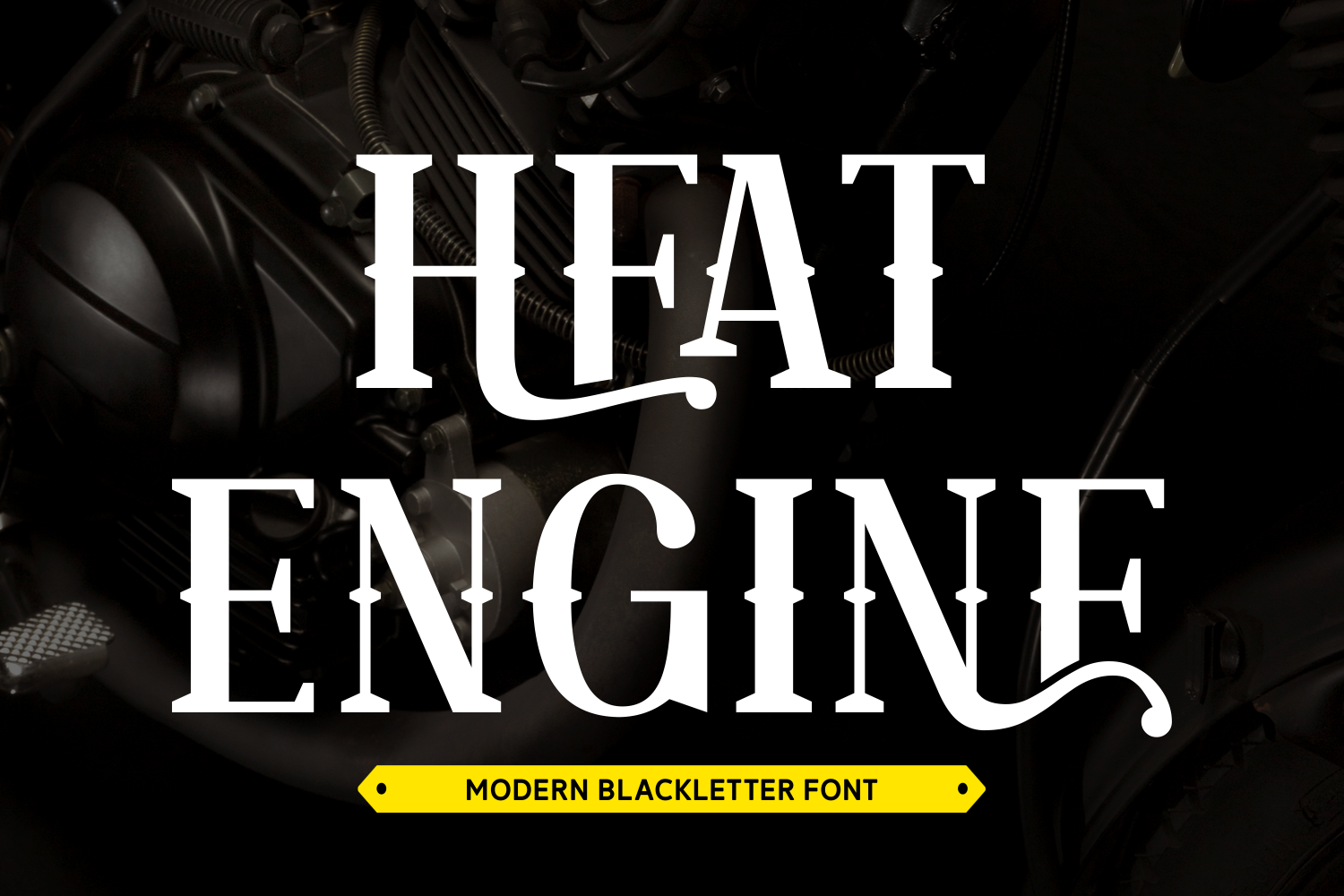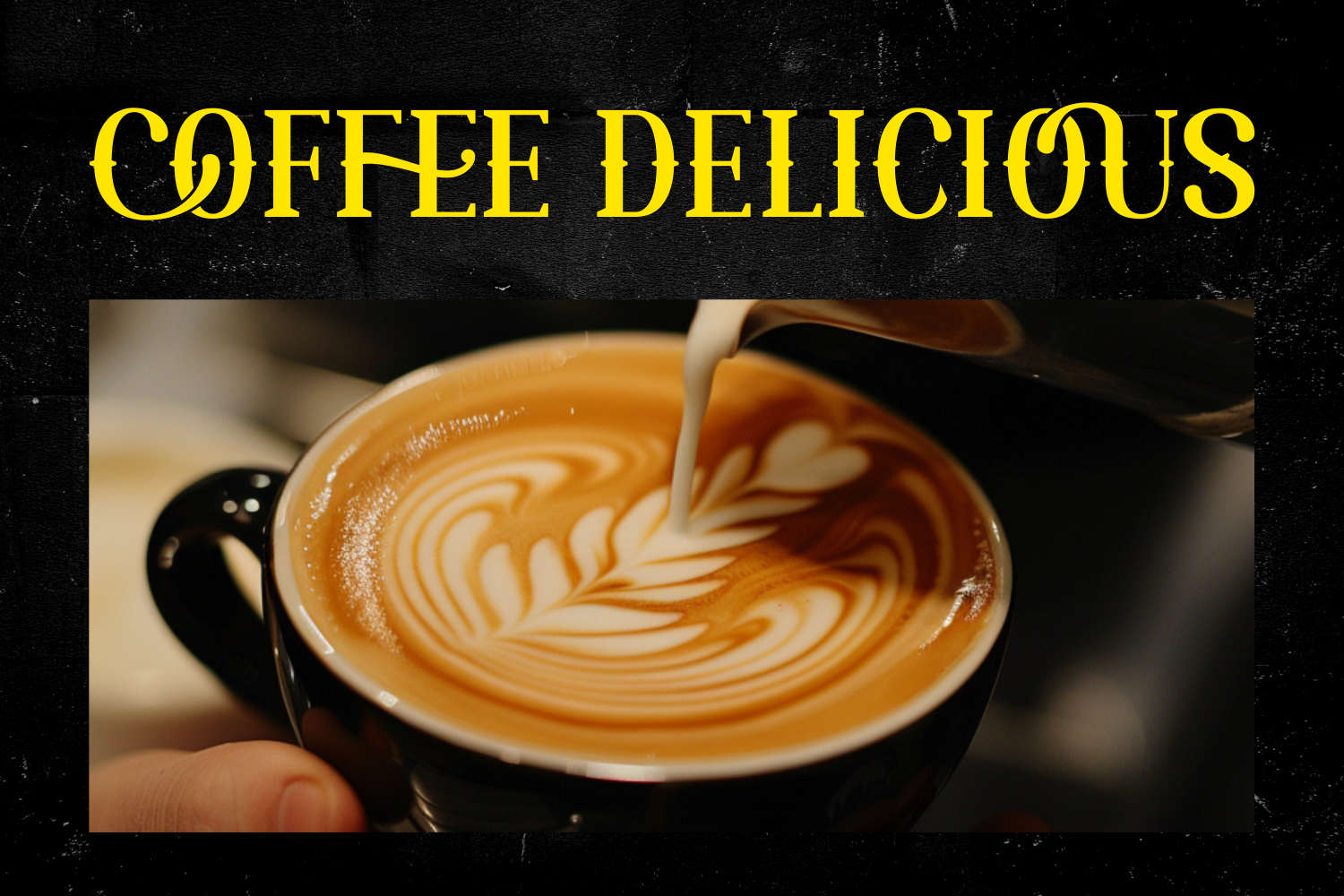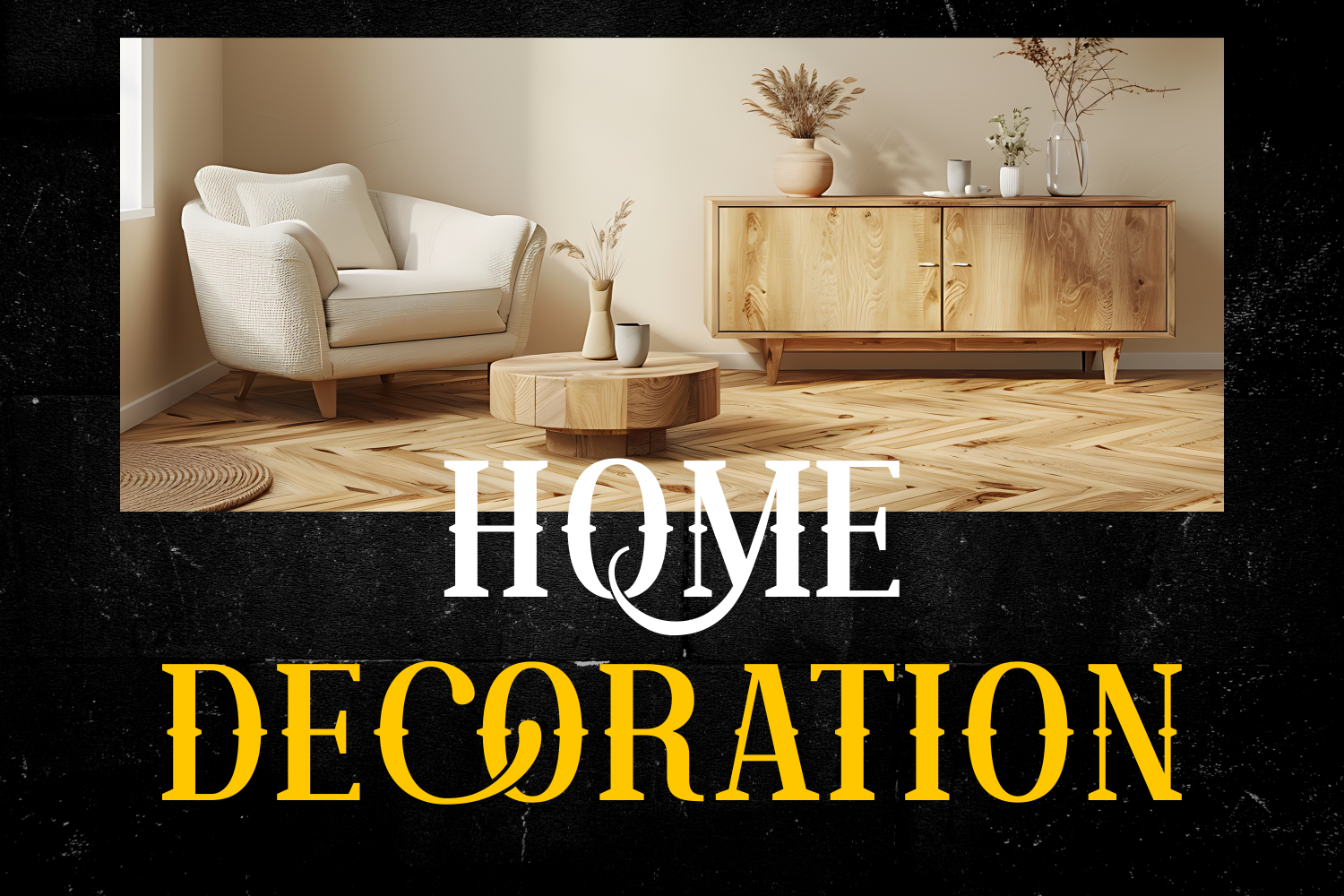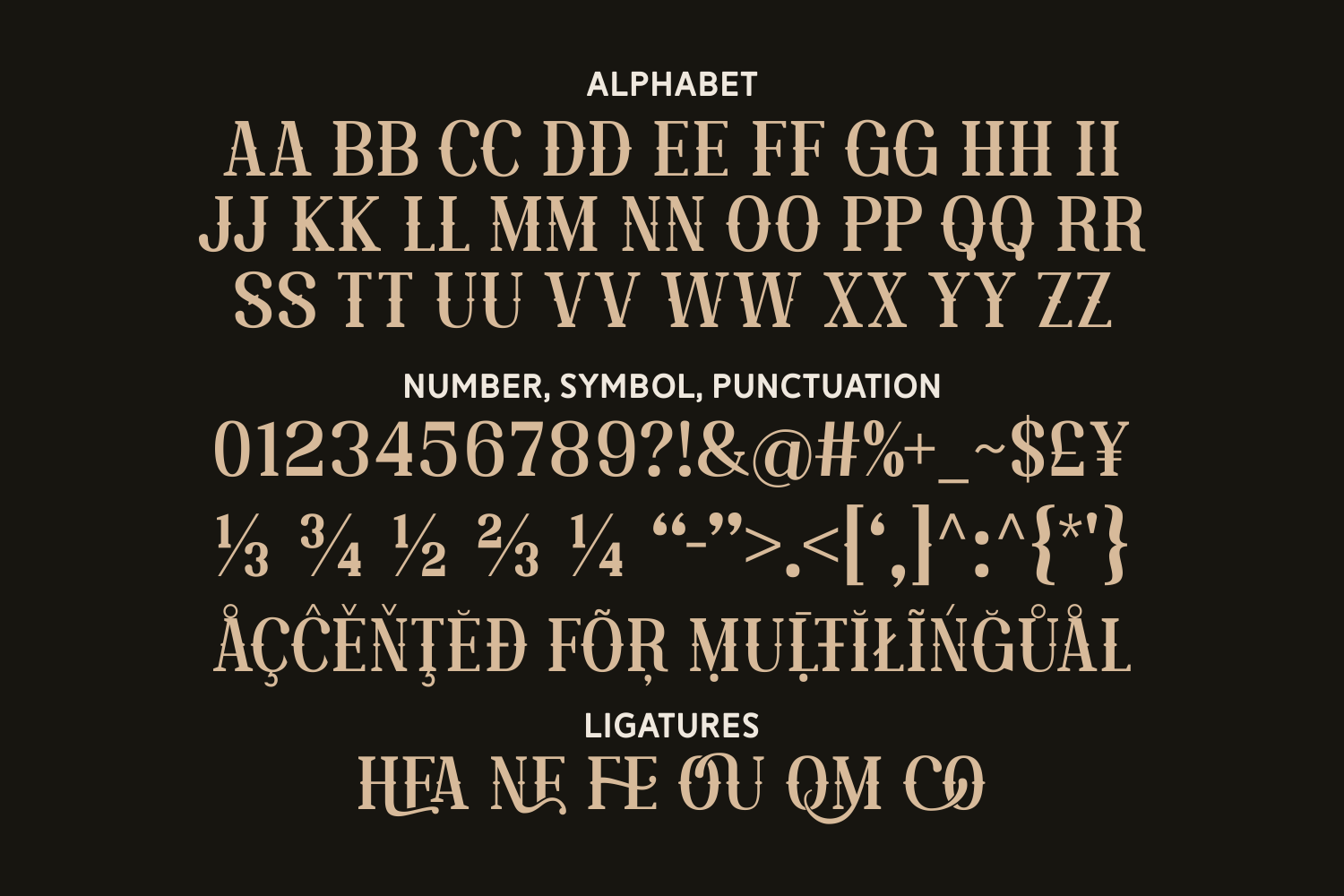
Heat Engine is a modern blackletter font with bold authority and mechanical precision. Its crisp lines and stylized swashes bring a fresh edge to the traditional gothic aesthetic, making it perfect for automotive branding, posters, and edgy editorial work that demands a high-performance look.